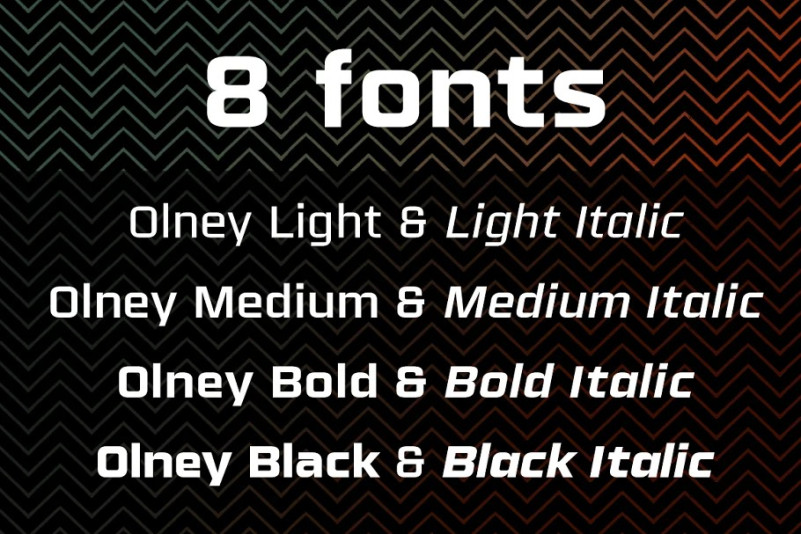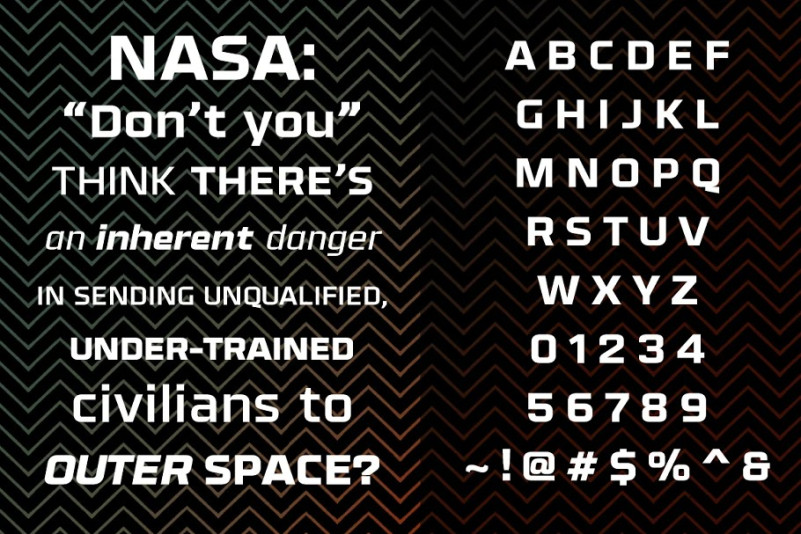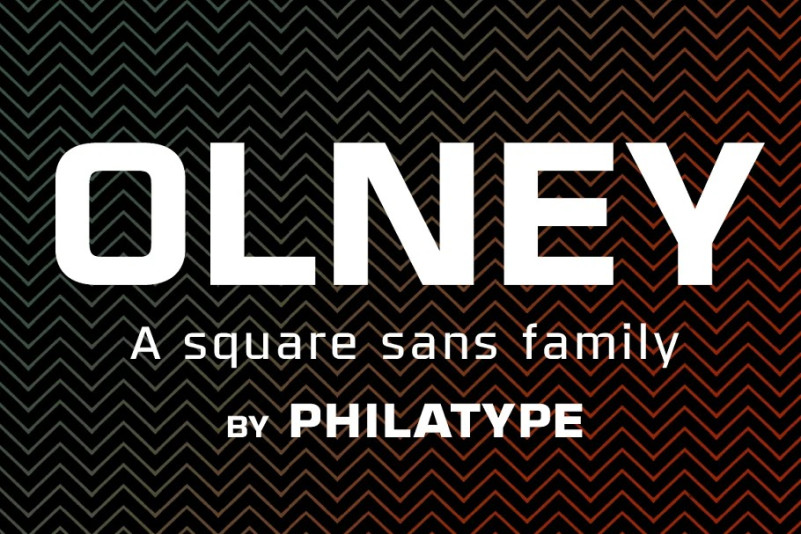
Olney Font
Olney Sans Serif Font, A square sans stripped down to basic, neutral shapes. Olney is primarily a display family with lighter weights that will remain legible at text sizes. The letterforms of Olney are designed to appear consistent, sturdy, and technical. Careful attention was given to the pure, almost modular forms, to ensure that the family looks timeless, rather than resorting to a contemporary or futuristic aesthetic. Each weight includes a thorough set of diacritics for Western and Central European languages.